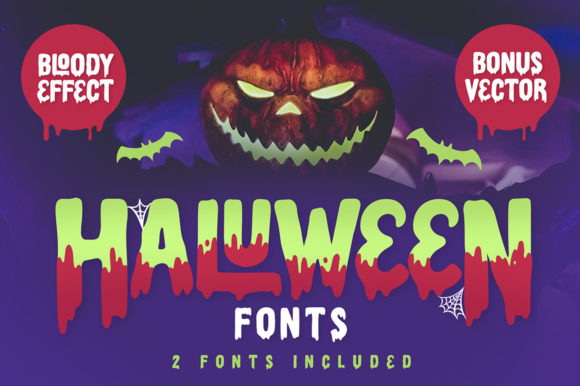
Unleash the haunting charm and captivate your audience with Haluween Font, a spine-tingling display font that'll elevate your creative endeavors to new heights. Inspired by the eerie beauty of Halloween, this font exudes an aura of mystery and intrigue, making it the perfect choice for adding a touch of the supernatural to your projects.
Carved with precision and painted with darkest ink, Haluween Font boasts a cast of characters that dance and swirl like phantoms in the moonlight. Its sharp edges and bold curves create a visual symphony that commands attention, ensuring your words leave an unforgettable impression.
With Haluween Font, you hold the key to unlocking a world of creative possibilities. Craft movie scripts that send chills down the spine, design party invitations that raise the hair on the back of your neck, or conjure up spellbinding posters that lure your audience into a realm of enchantment.
Step into the shadows and embrace the allure of Haluween Font. Let your imagination run wild as you craft tales that haunt and delight, leaving your readers spellbound and yearning for more. Dare to be different, dare to be haunting, and let Haluween Font cast its magical spell on your creative pursuits. Embrace the darkness and let your creativity soar.